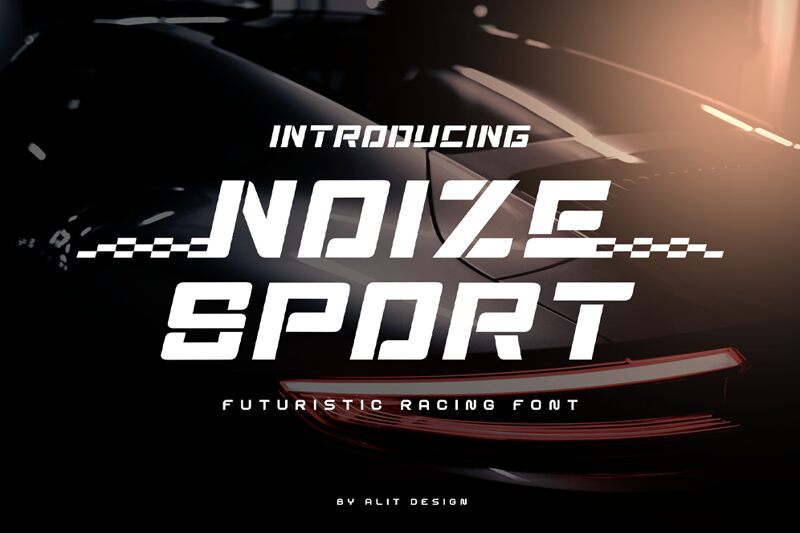
Noize Sport is a bold and wide futuristic racing typeface designed by Alit Suarnegara. Its modern and dynamic style makes it perfect for projects such as creating eye-catching posters, logo designs, and product packaging.